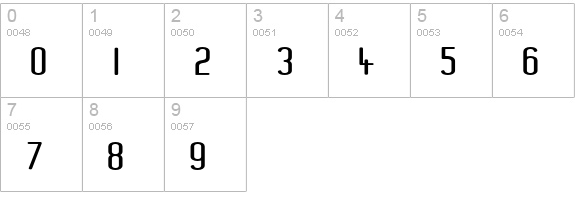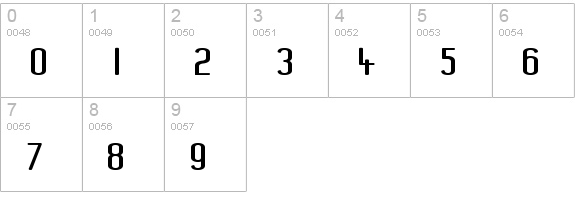
XenomorphSans Font Details
Introducing XenomorphSans font, a stunning and versatile typeface that combines sleek modernity with a touch of otherworldly elegance. This unique font is perfect for elevating any design project, from branding to editorial layouts to web design. With its bold yet refined letterforms, XenomorphSans exudes a sense of sophistication and style that is sure to captivate your audience. Best of all, XenomorphSans is completely free to download at FontsMarket.com. This means you can enhance your creative projects with this exceptional font without any cost or restrictions. Don't miss out on the opportunity to add a touch of elegance and originality to your designs with XenomorphSans font. Download it today and let your creativity soar!